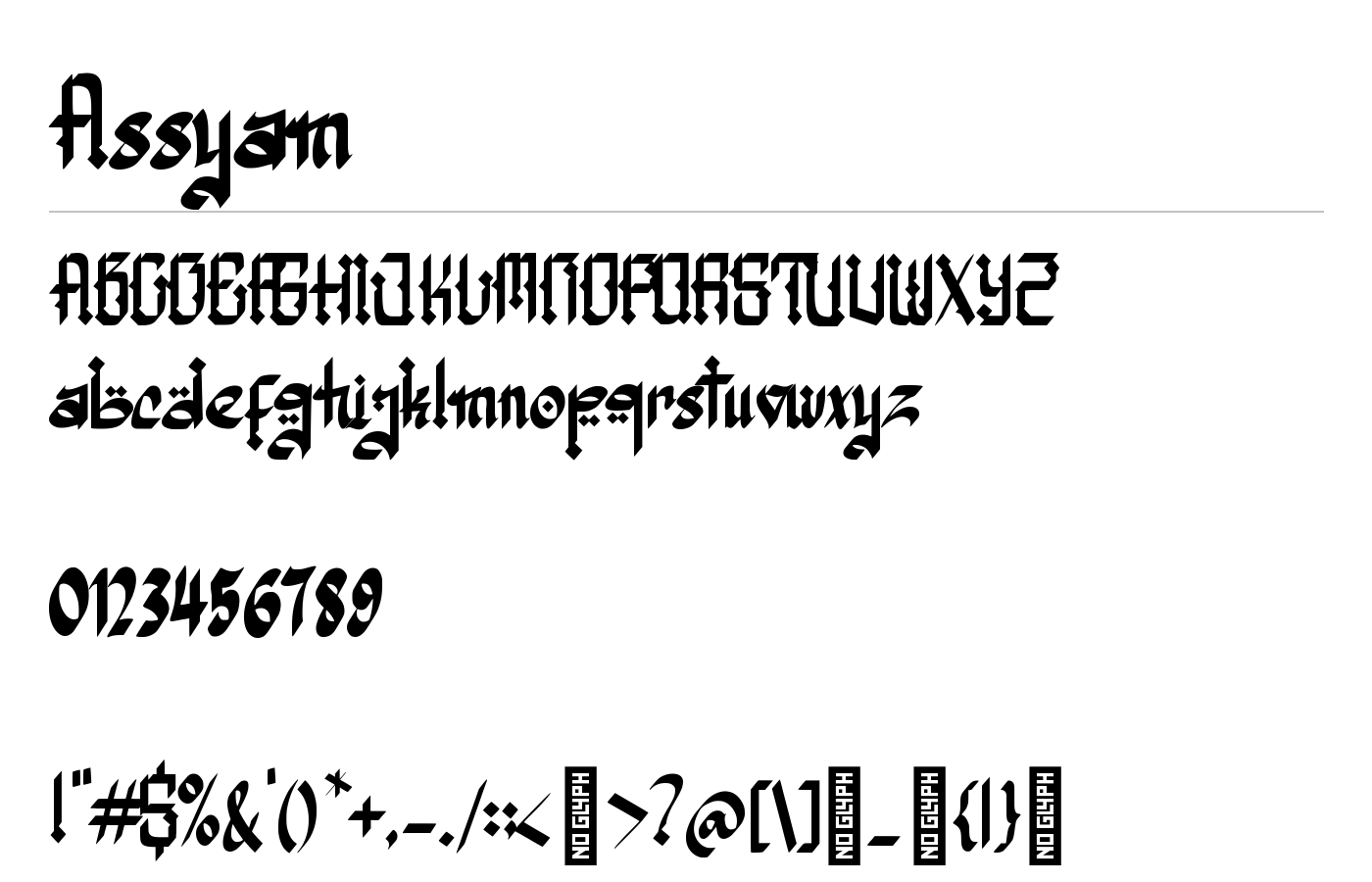
Assyam is a bold, blackletter-inspired font with sharp, geometric strokes and high contrast between thick and thin lines. Its condensed letterforms and distinctive angular serifs give it a dramatic, medieval feel that works well for vintage or gothic-themed branding, posters, and headlines. This font’s strong personality makes it ideal for projects seeking a striking, historic, or edgy aesthetic.
Assyam Font